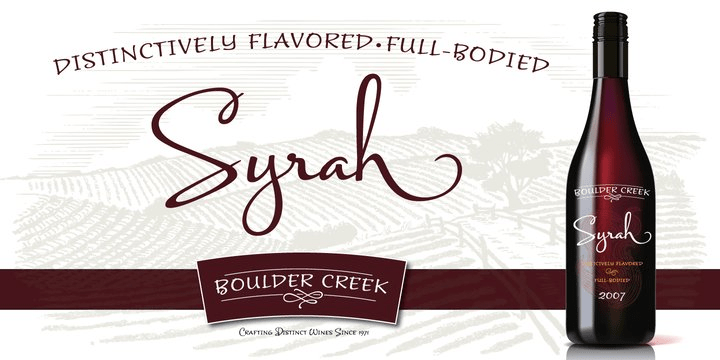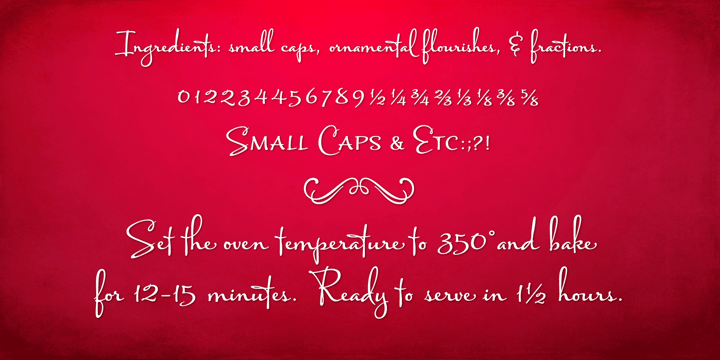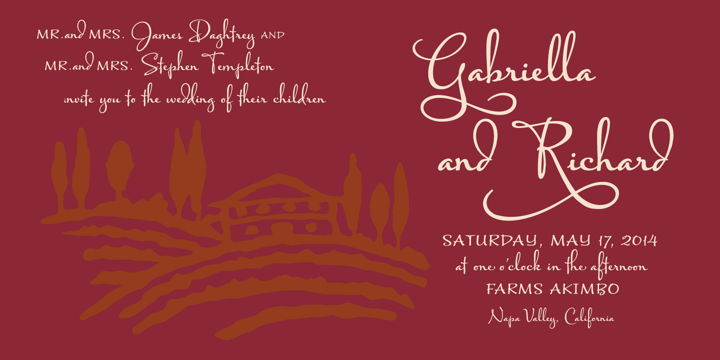
About Baghadeer
Baghadeer, from the hand of Stephen Rapp, is an upright connecting script brimming with personality. With its exuberant capitals, dashing crossover strokes, and rhythmic pulse; it retains the active spirit most associated with slanted scripts, but with…